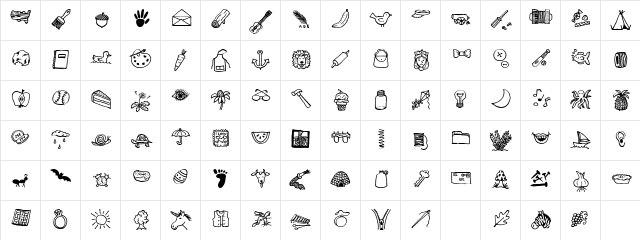
CK Begins With Regular
Design Context for CK Begins With Typeface
CK Begins With is a composed and adaptable typeface that performs quietly and consistently across a wide range of design contexts.